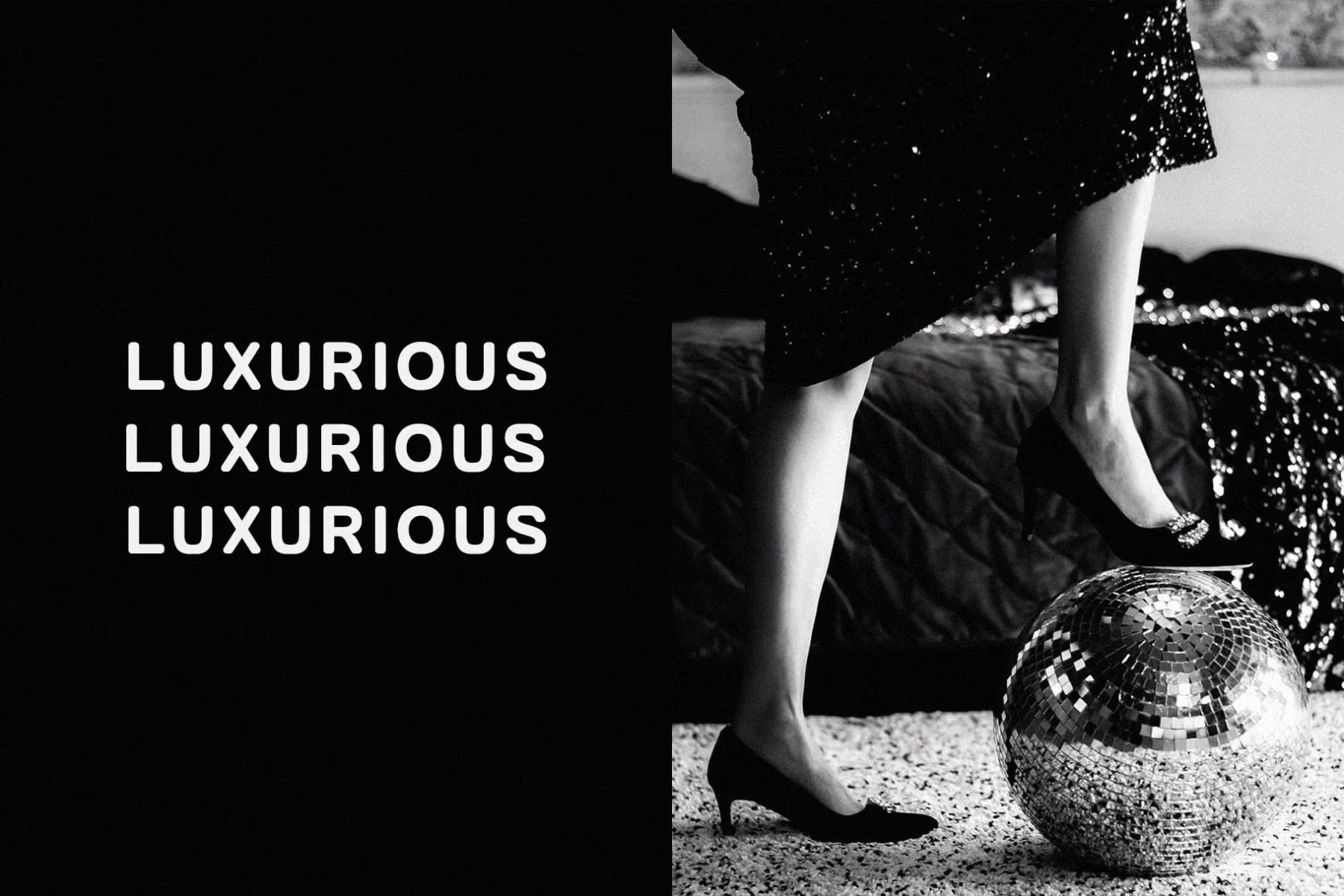
Dearly Font
Dearly is a modern display sans-serif font by Typeformers, featuring a minimalistic and elegant design. With its clean, well-proportioned characters, it exudes sophistication and balance, making it a versatile choice for various design projects.
Ideal for professional and stylish branding, advertising, and web design, Dearly adds a refined touch to any creative work.